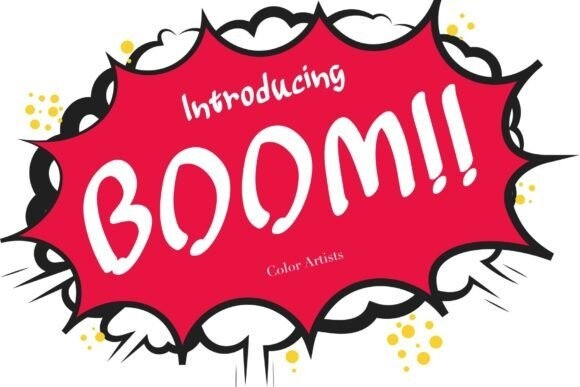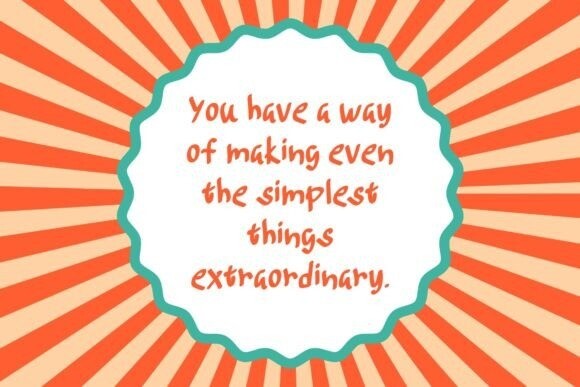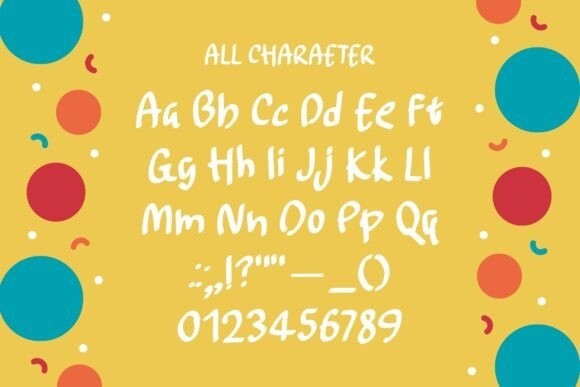
Boom Font
Boom font, the perfect choice for adding excitement and impact to your designs! With its bold and explosive letterforms, this font captures attention and makes a statement. Whether you’re designing posters, banners, or headlines, Boom font will bring a dynamic and energetic vibe to your project.